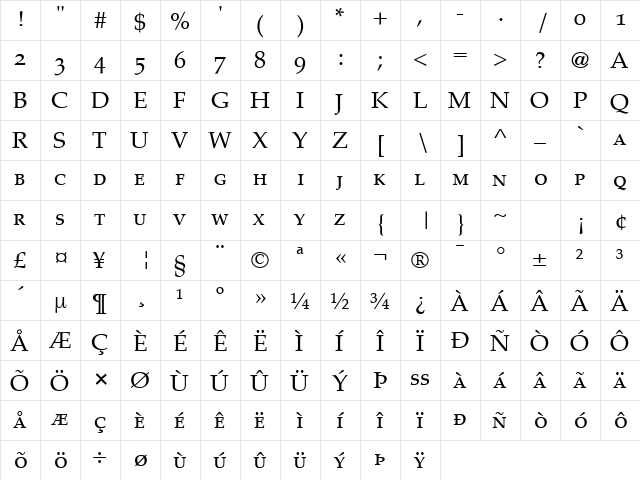
Palatino SC Regular
Design Context for Palatino SC Typeface
Palatino SC takes a measured approach to typography — its balanced proportions and neutral character make it a reliable workhorse for both digital and print work.